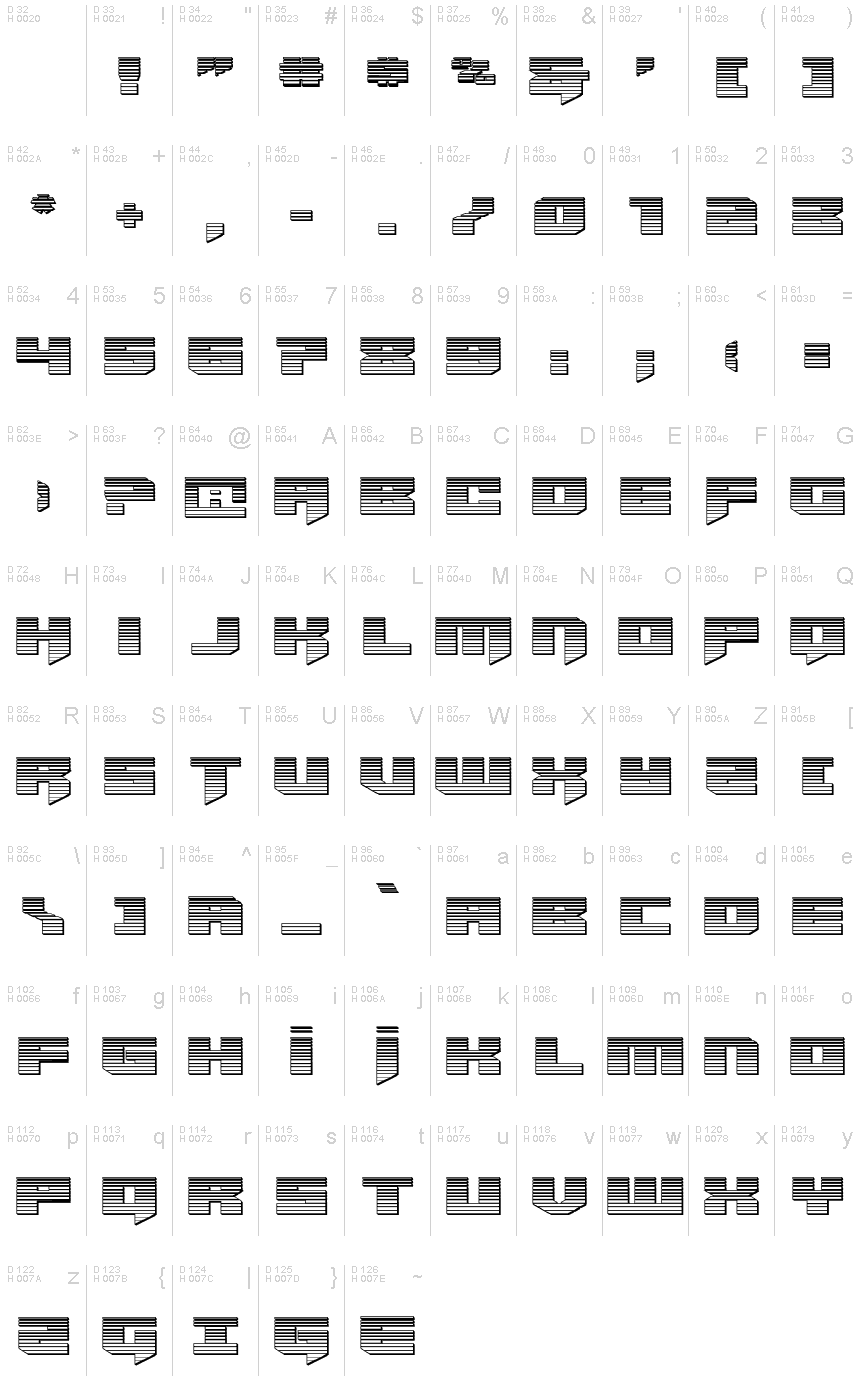
Bridge OFFicer Straight Chrome
Bridge Officer Straight Chrome, from the Bridge Officer font family by Iconian Fonts, stands out as a quintessential display font that exudes a powerful techno vibe. Crafted with an extra-bold weight and extra-expanded width, this typeface boasts a sleek and futuristic aesthetic that is sure to grab attention.
The chrome finish adds a polished sheen to each character, reinforcing its mechanical precision and modernistic flair. The sharp angles and clean lines present in the design underscore its authoritative presence - perfect for projects that demand impact and high visibility.
Ideal for titles, headers, and any application where you wish to make a bold statement, Bridge Officer Straight Chrome is particularly suited for creative endeavors related to technology, science fiction, or any field that prides itself on innovation. Its distinct style ensures it will leave an indelible impression on posters, logos, gaming interfaces, and multimedia presentations alike.
The chrome finish adds a polished sheen to each character, reinforcing its mechanical precision and modernistic flair. The sharp angles and clean lines present in the design underscore its authoritative presence - perfect for projects that demand impact and high visibility.
Ideal for titles, headers, and any application where you wish to make a bold statement, Bridge Officer Straight Chrome is particularly suited for creative endeavors related to technology, science fiction, or any field that prides itself on innovation. Its distinct style ensures it will leave an indelible impression on posters, logos, gaming interfaces, and multimedia presentations alike.